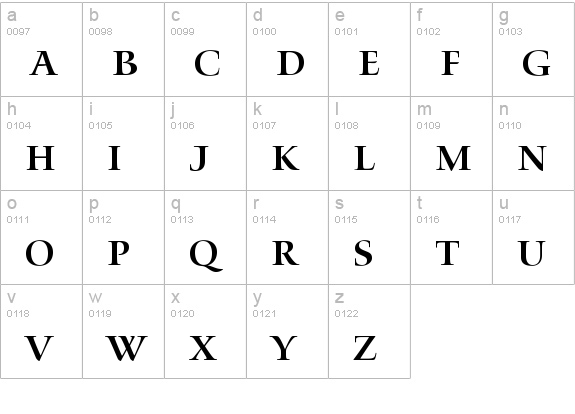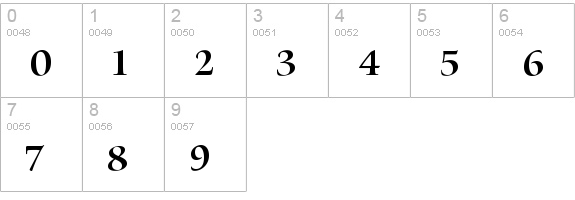
Waters Titling Pro Semibold Font Details
Waters Titling Pro Semibold is a sub-bold, structured variant in the Waters typeface family \xE2\x80\x94 well suited to sub-headlines and emphasised passages.
Introducing Waters Titling Pro Semibold font, a versatile and captivating typeface that combines elegance with boldness. This font is perfect for creating eye-catching headlines, striking titles, and impactful designs that demand attention. With its clean and modern aesthetic, Waters Titling Pro Semibold font effortlessly conveys sophistication and professionalism. Its carefully crafted letterforms exude confidence, making it an ideal choice for branding, advertising, editorial projects, and more. What sets Waters Titling Pro Semibold font apart is not only its striking design but also its accessibility. We are thrilled to announce that this font is available for free download exclusively at FontsMarket.com. Yes, you read that right - this premium font can be yours without spending a dime! By offering Waters Titling Pro Semibold font for free, we aim to empower designers, creatives, and enthusiasts alike, providing them with a high-quality typeface that elevates their work without any financial barriers. Now, you can unleash your creativity and make a bold statement without breaking the bank. Whether you are a seasoned professional or just starting on your creative journey, Waters Titling Pro Semibold font is the perfect tool to enhance your designs. Its extensive character set, including uppercase letters, numbers, punctuation marks, and special symbols, ensures versatility and flexibility in your projects. So why wait? Join the countless designers who have already discovered the power of Waters Titling Pro Semibold font. Download it today for free at FontsMarket.com and unlock a world of possibilities for your next design endeavor. Let your creativity flow and make a lasting impression with this extraordinary typeface.